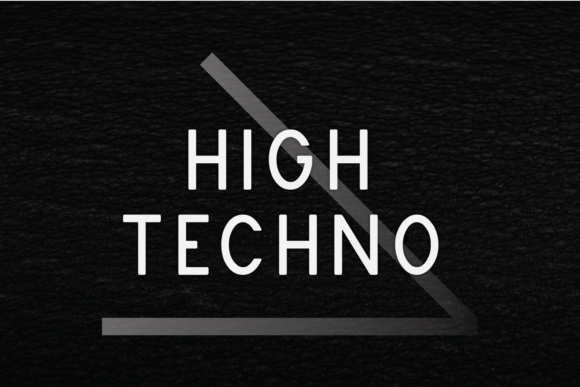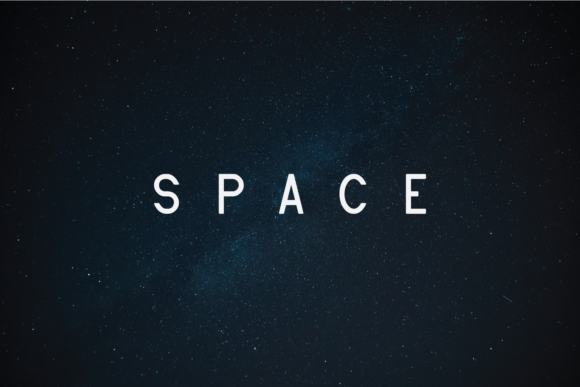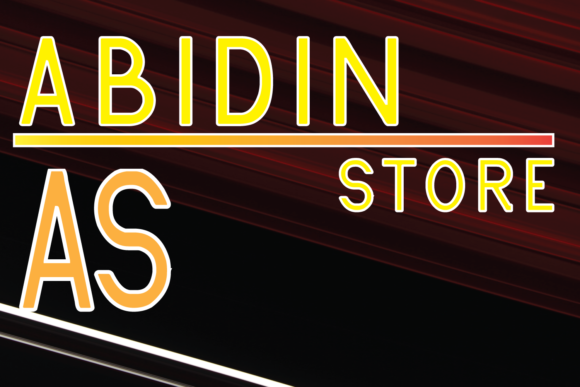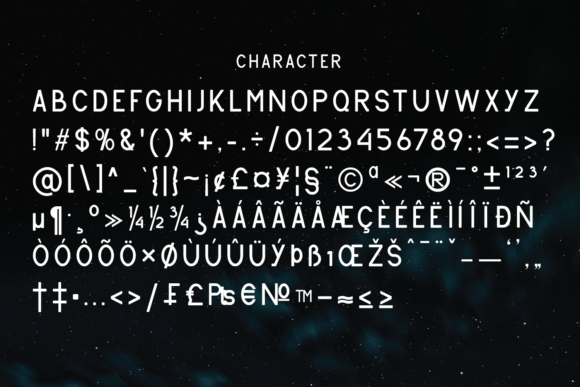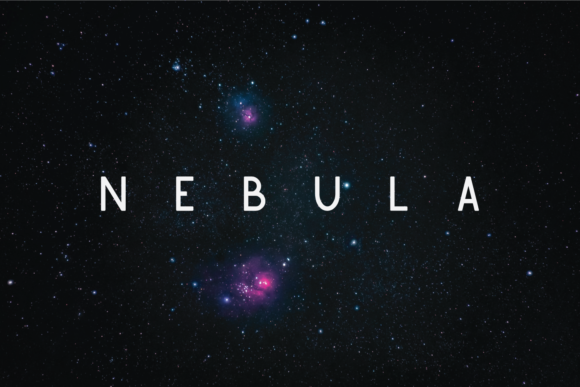
Introducing Gravaro Font: Elevate Your Designs with a Minimal and Neat Sans Serif
Are you on the hunt for a font that can effortlessly elevate your creative projects? Look no further than Gravaro Font, a stunning sans serif font that is as minimal as it is neat. With its clean lines and versatile design, Gravaro is the perfect addition to any designer’s toolkit. In this article, we’ll dive into the world of Gravaro Font, exploring its features, benefits, and uses, and showing you how it can make your projects stand out from the crowd.
What is Gravaro Font?
Gravaro Font is a modern sans serif font that boasts a sleek and sophisticated design. Its minimalistic approach makes it an excellent choice for designers who want to add a touch of elegance to their work. The font’s clean lines, simple shapes, and uncluttered aesthetic make it perfect for a wide range of projects, from branding and advertising to packaging and digital media.
Key Features of Gravaro Font
So, what makes Gravaro Font so special? Here are just a few of its key features:
- Minimal and neat design: Gravaro’s sans serif design is characterized by its simplicity and elegance, making it perfect for modern designs.
- Versatility: This font can be used in a wide range of projects, from digital media to print materials.
- Clean lines and simple shapes: Gravaro’s design is based on clean lines and simple shapes, making it easy to read and visually appealing.
- High legibility: The font’s clear and concise design ensures that your text is always easy to read, even at small sizes.
Benefits of Using Gravaro Font
So, why should you choose Gravaro Font for your next project? Here are just a few benefits of using this amazing font:
- Elegance and sophistication: Gravaro adds a touch of elegance and sophistication to any design, making it perfect for high-end brands and luxury products.
- Flexibility: This font can be used in a wide range of projects, from digital media to print materials, making it a great addition to any designer’s toolkit.
- Easy to read: Gravaro’s clear and concise design ensures that your text is always easy to read, even at small sizes.
- Unique and creative: With its minimalistic design, Gravaro is sure to make your projects stand out from the crowd.
Using Gravaro Font in Your Designs
So, how can you use Gravaro Font in your designs? Here are a few ideas to get you started:
- Branding and advertising: Use Gravaro Font to create stunning logos, ads, and marketing materials that showcase your brand’s elegance and sophistication.
- Packaging design: Add a touch of luxury to your packaging designs with Gravaro Font, perfect for high-end products and premium brands.
- Digital media: Use Gravaro Font in your digital media projects, such as website designs, social media graphics, and email marketing campaigns.
- Crafting and DIY projects: Add a personal touch to your crafting and DIY projects with Gravaro Font, perfect for creating unique and eye-catching designs.
In conclusion, Gravaro Font is a stunning sans serif font that is sure to elevate your creative projects. With its minimal and neat design, versatility, and high legibility, Gravaro is the perfect addition to any designer’s toolkit. Whether you’re working on a branding project, packaging design, or digital media project, Gravaro Font is sure to make your designs stand out from the crowd. So why wait? Download Gravaro Font today and start creating stunning designs that showcase your creativity and style!